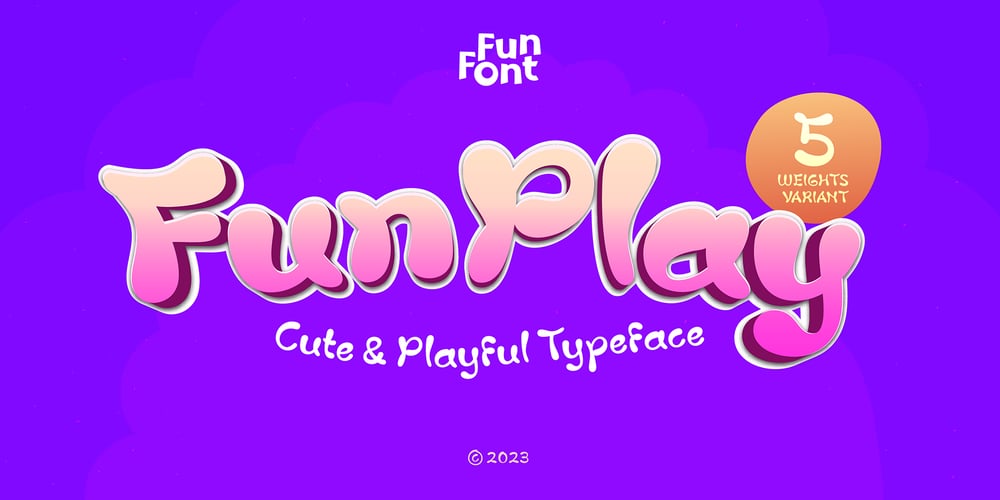
Fun Play
Fun Play font
Fun Play Font Family was designed by Nur Syamsi and published by FunFont. Fun Play contains 6 styles and family package options. Fun Play is A Fun and Playful display typeface family with 5 wights variant; from Light to Bold. Comes with many features; Multilingual Support, Ligatures, Stylistic Alternate and more.Each character represents a child’s joy. ‘Fun Play’ can be used for branding, packaging, headline and all styles of children-related design.